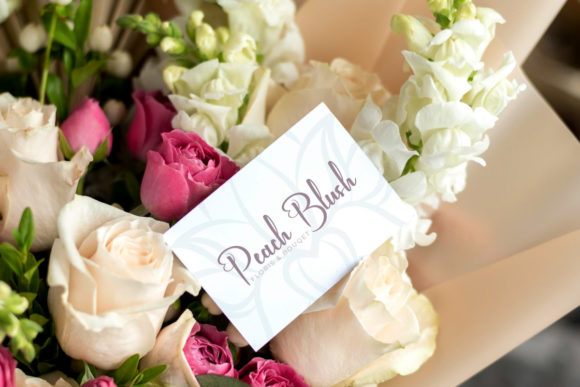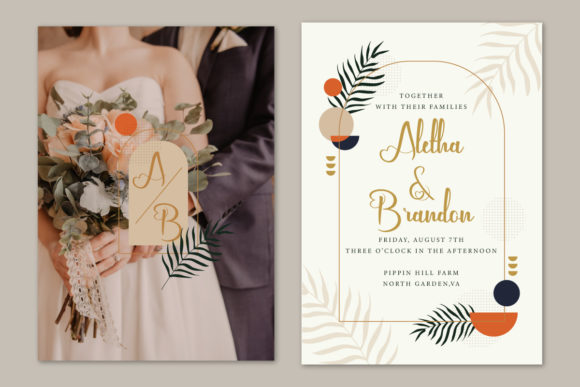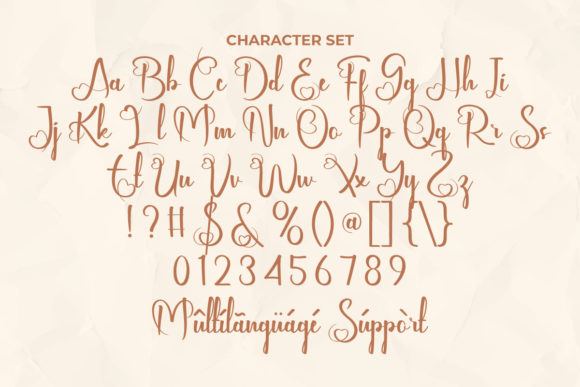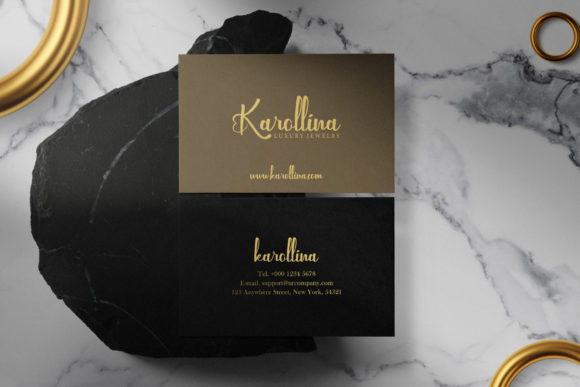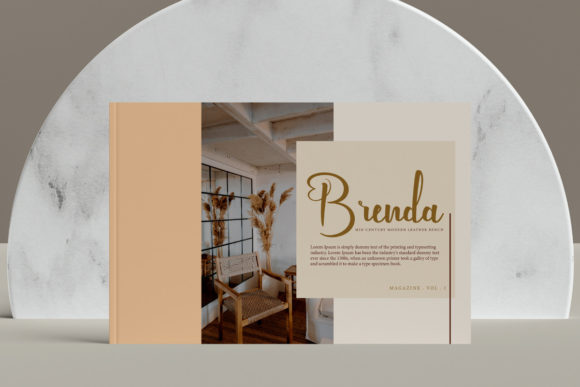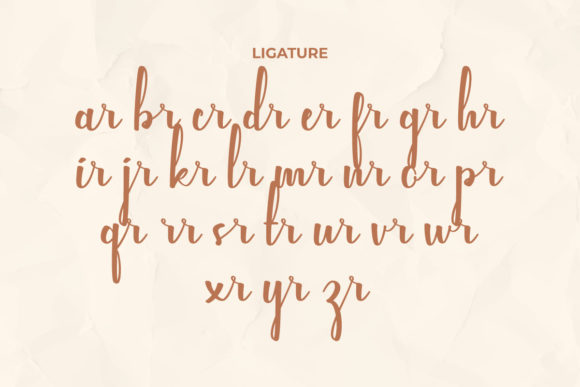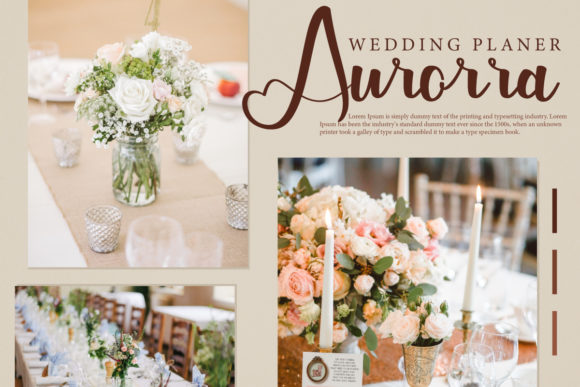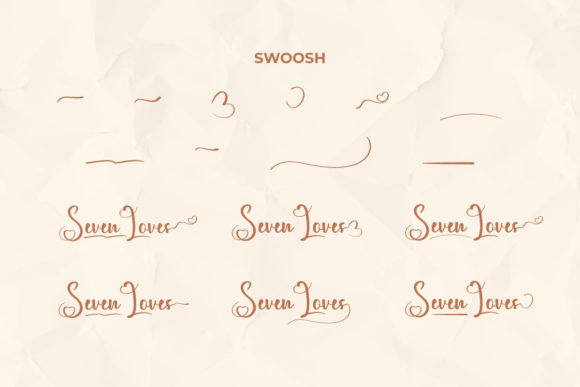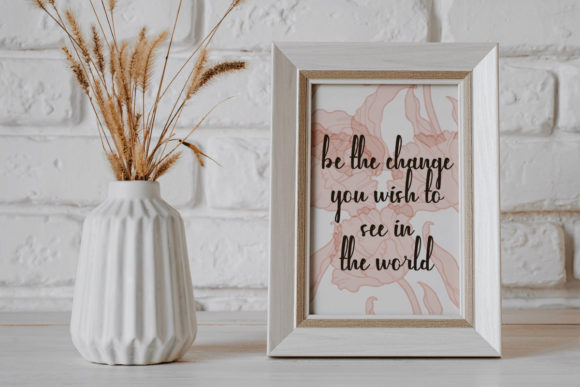
Seven Loves Font
About Seven Loves Font
“Seven Loves” is a beautiful and lovely script font that comes adorned with unique swashes and ligatures. With a classy, elegant, and modern appearance, this font proves versatile for a myriad of design applications, including business cards, fashion brands, florists, headlines, labels, logos, quotes, stationery, wedding designs, and beyond.
The distinctive charm of “Seven Loves” lies in its ability to convey a sense of beauty and sophistication. Its script style adds a touch of elegance, making it suitable for projects that require a refined aesthetic. The inclusion of unique swashes and ligatures enhances the font’s versatility, allowing for creative and personalized typography.
Imagine “Seven Loves” gracing a business card, where its classy and modern look elevates the overall design, leaving a lasting impression. In the realm of fashion branding, this font becomes a key element in creating a visual identity that exudes style and sophistication.
For wedding designs, “Seven Loves” adds a romantic and elegant touch, with its swashes and ligatures enhancing the celebratory atmosphere. Whether it’s used in stationery, logos, or quotes, the font contributes to a visually appealing and memorable presentation.
Incorporate “Seven Loves” into your creative projects, and let its beautiful and lovely script font bring an extra layer of elegance. Whether you’re working on a fashion brand, wedding designs, or any project that calls for a touch of sophistication, this font proves to be a valuable asset in creating visually captivating and memorable designs.